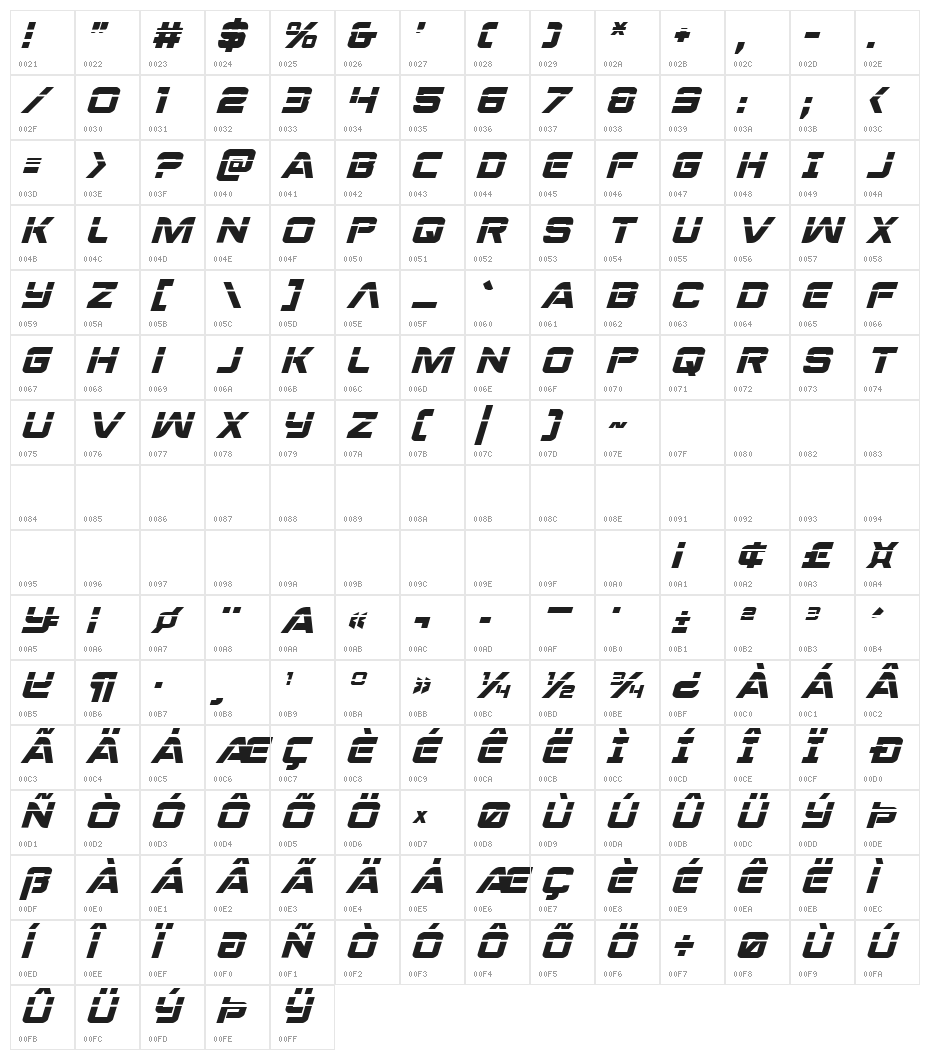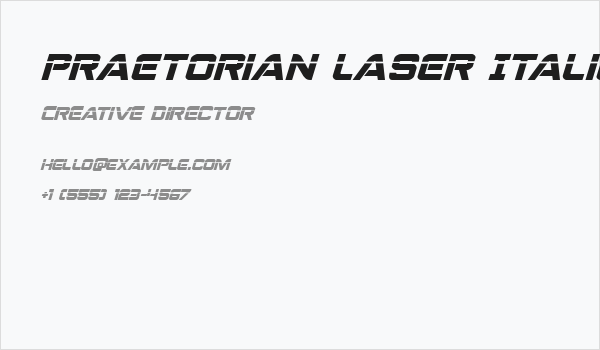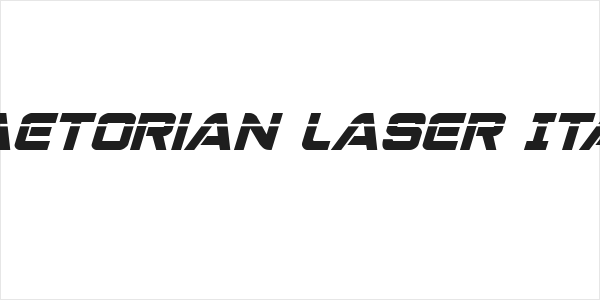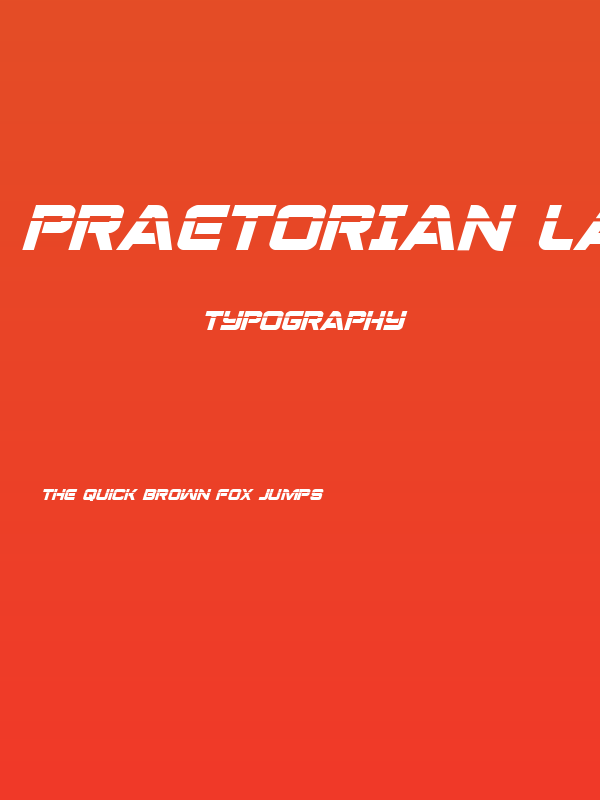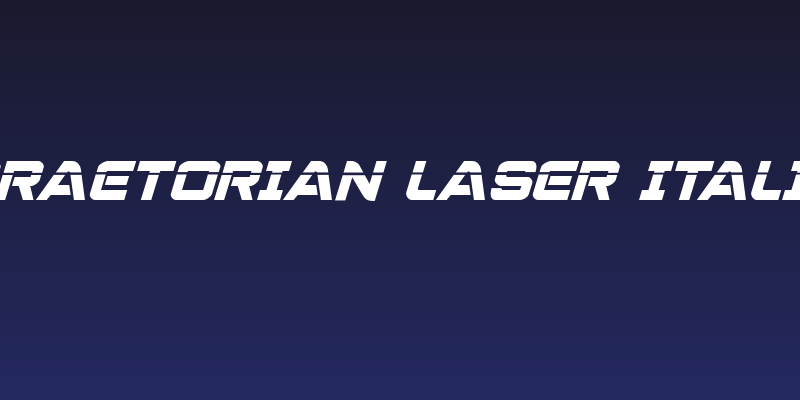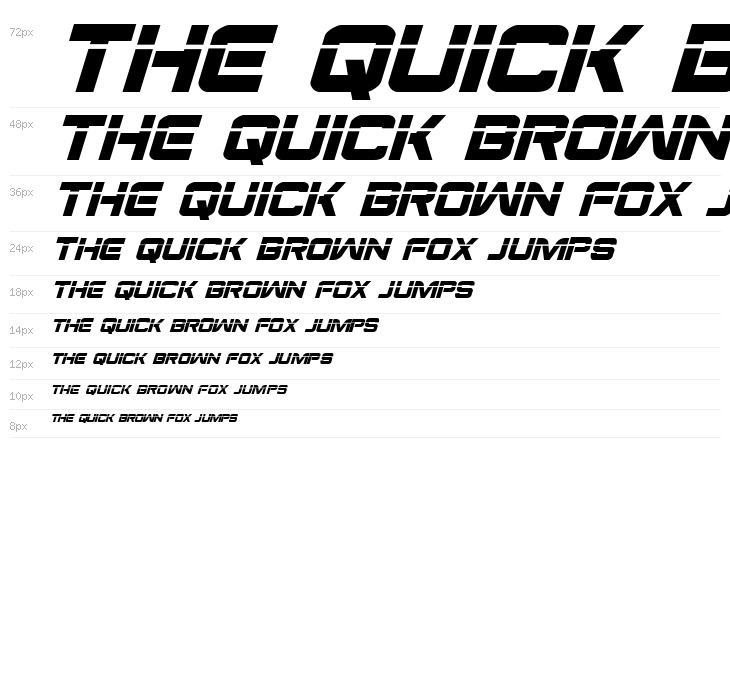
Praetorian Laser Italic Font
Praetorian Laser Italic Description
This font features a bold, futuristic design with a distinct italic slant, giving it a dynamic and forward-moving appearance. The characters are constructed with sharp angles and clean lines, creating a sense of speed and modernity. The uppercase and lowercase letters maintain a consistent style, with the uppercase being slightly more pronounced. Numbers and special characters follow the same angular and sleek design, ensuring uniformity across all glyphs. The font's boldness and italic nature make it stand out, suitable for projects that require a strong visual impact.
Proposed ProjectsIdeal for sci-fi themed designs, video game graphics, technology branding, and sports logos.